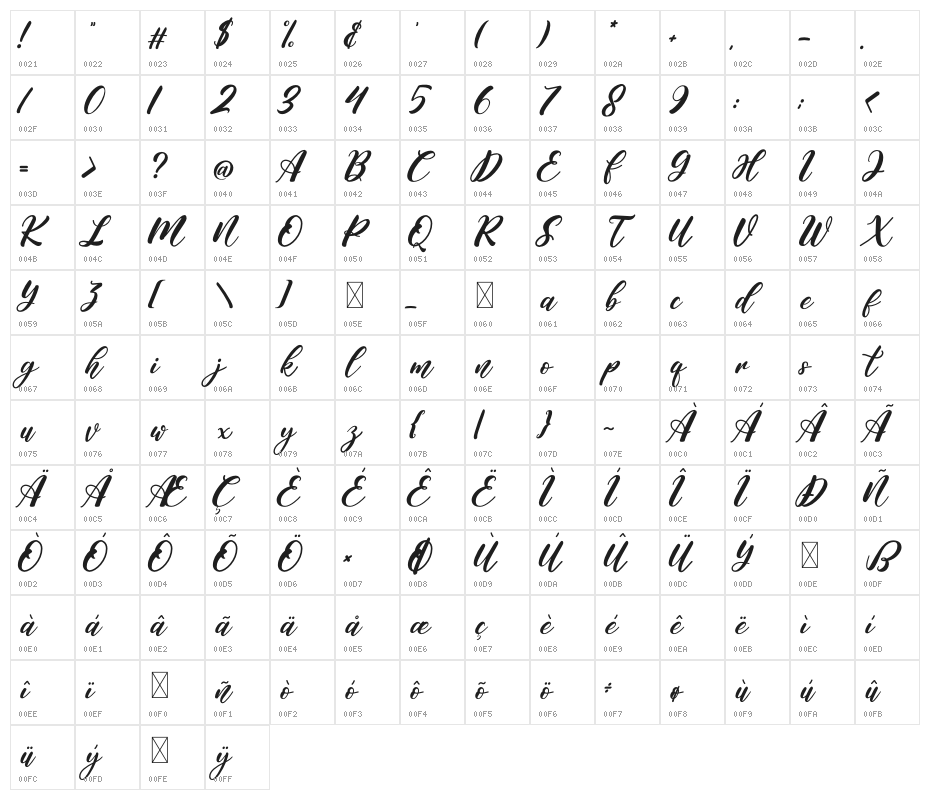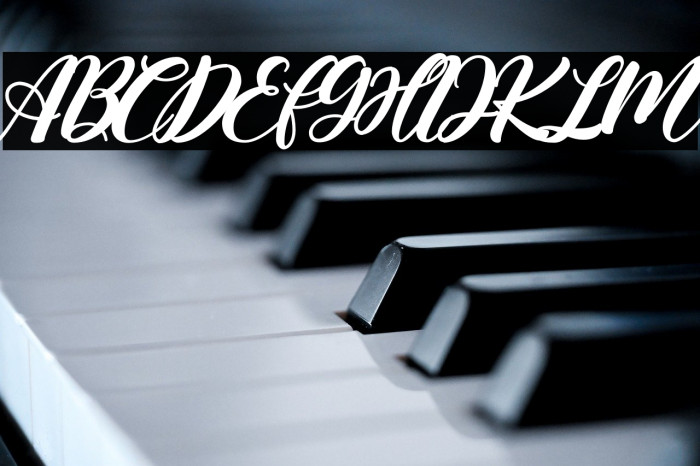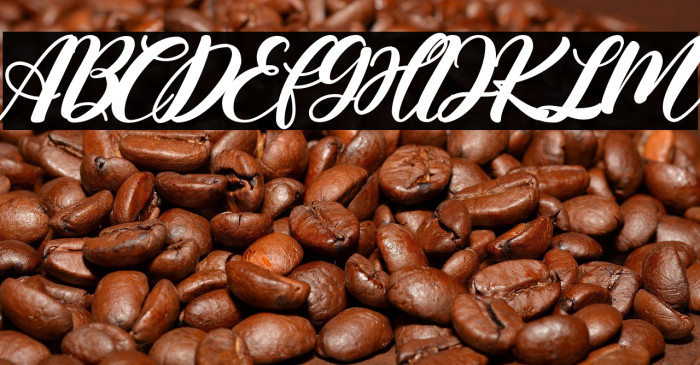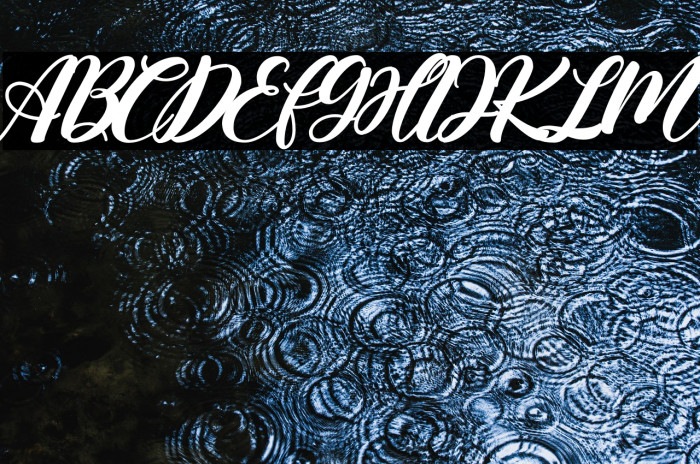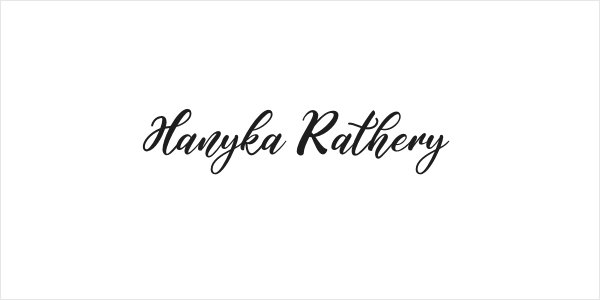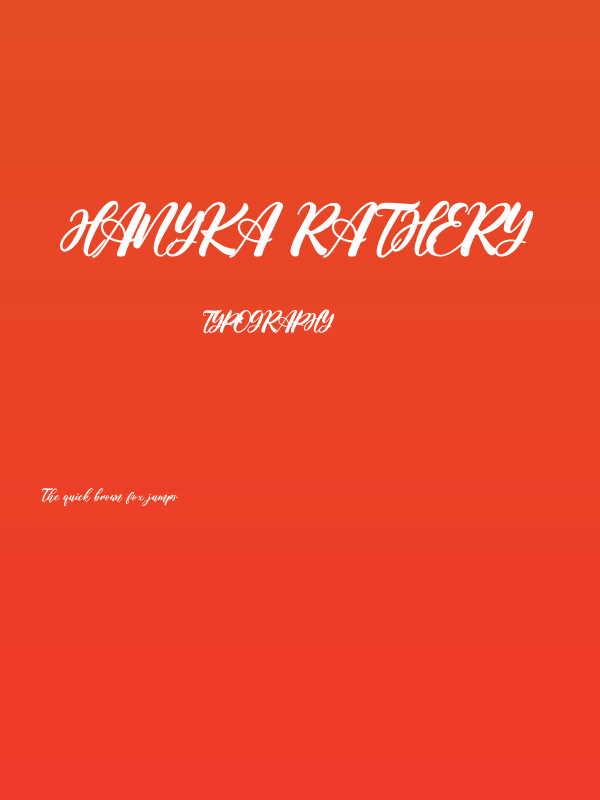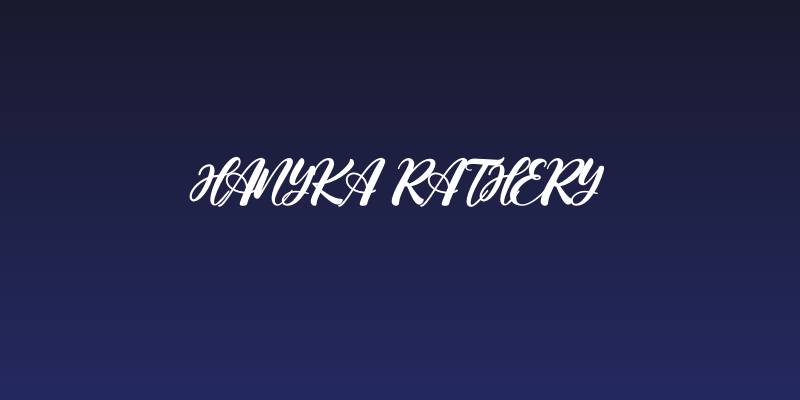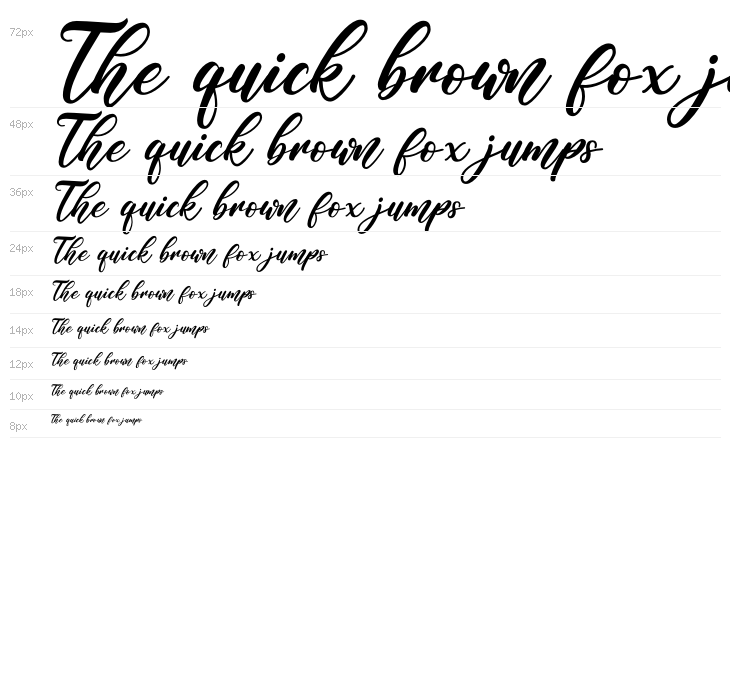
Hanyka Rathery Font
Hanyka Rathery Description
This font features a bold and expressive script style, characterized by its fluid and dynamic strokes. The letters are interconnected, giving a sense of continuity and flow, reminiscent of elegant handwriting. The uppercase letters are particularly ornate, with sweeping curves and loops that add a touch of sophistication. The lowercase letters maintain a consistent style, complementing the uppercase with their smooth and rounded forms. The numerals and special characters are crafted with the same attention to detail, ensuring a cohesive look across all elements. This font is ideal for projects that require a personal and artistic touch.
Use CaseLogos, Headlines, Invitations
Proposed ProjectsIdeal for wedding invitations, greeting cards, logos, and branding materials that require an elegant and personal touch.